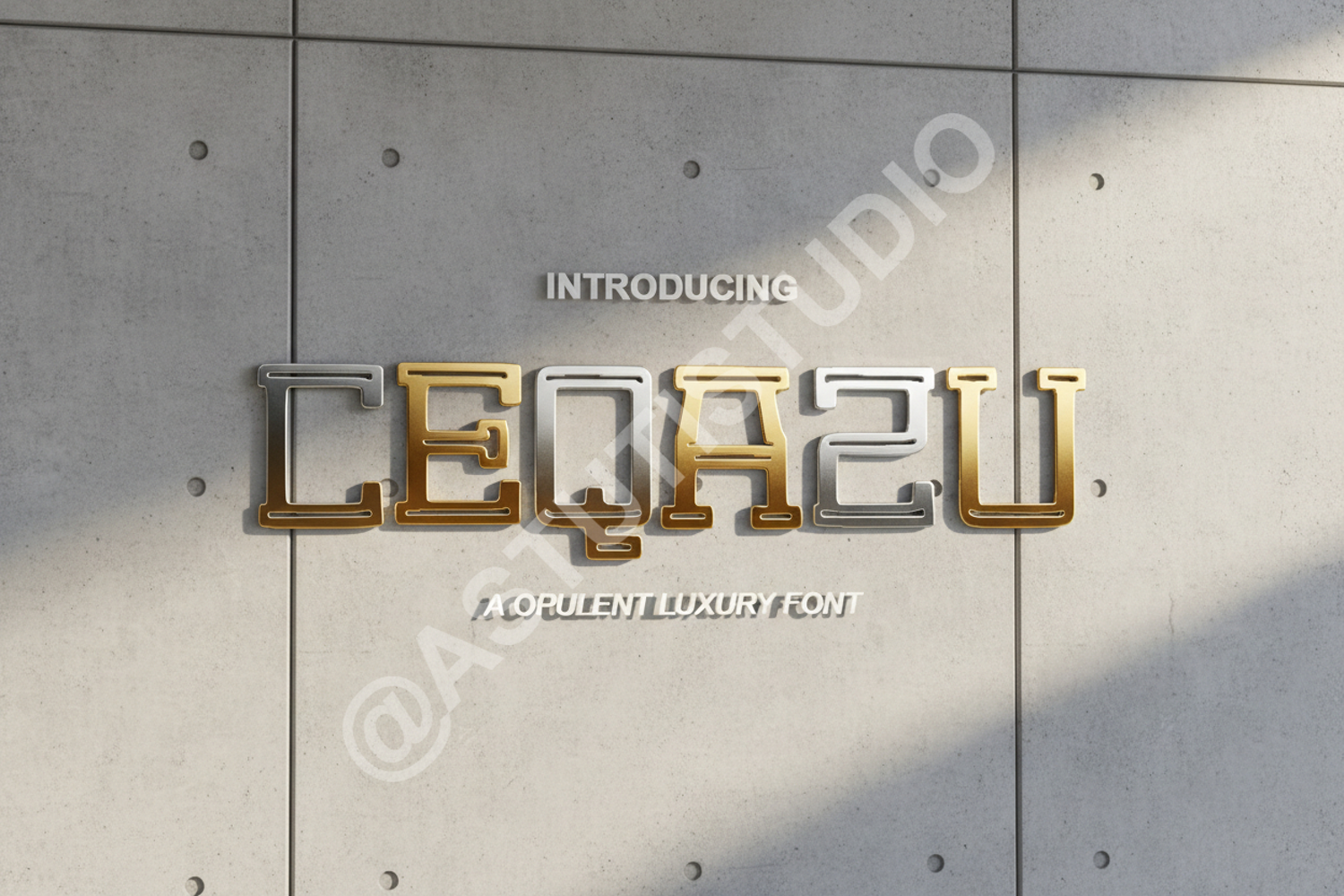
Ceqazu - Modern Geometric Display Sans
Ceqazu
Elevate your creative projects with Ceqazu, a premium geometric display font designed for modern aesthetics. Ceqazu balances sharp precision with elegant proportions, making it a versatile choice for designers seeking a sophisticated and contemporary look. Whether you are crafting a high-end brand identity or a minimalist editorial layout, this font provides the professional edge your work deserves.
- Branding and Visual Identity: Create memorable logos and brand guidelines.
- Editorial Design: Perfect for magazine headers and stylish layouts.
- Social Media Graphics: Stand out on Instagram and Pinterest with clean typography.
- Product Packaging: Add a luxury touch to your physical goods.
- Advertising: Ideal for high-impact headlines and promotional materials.